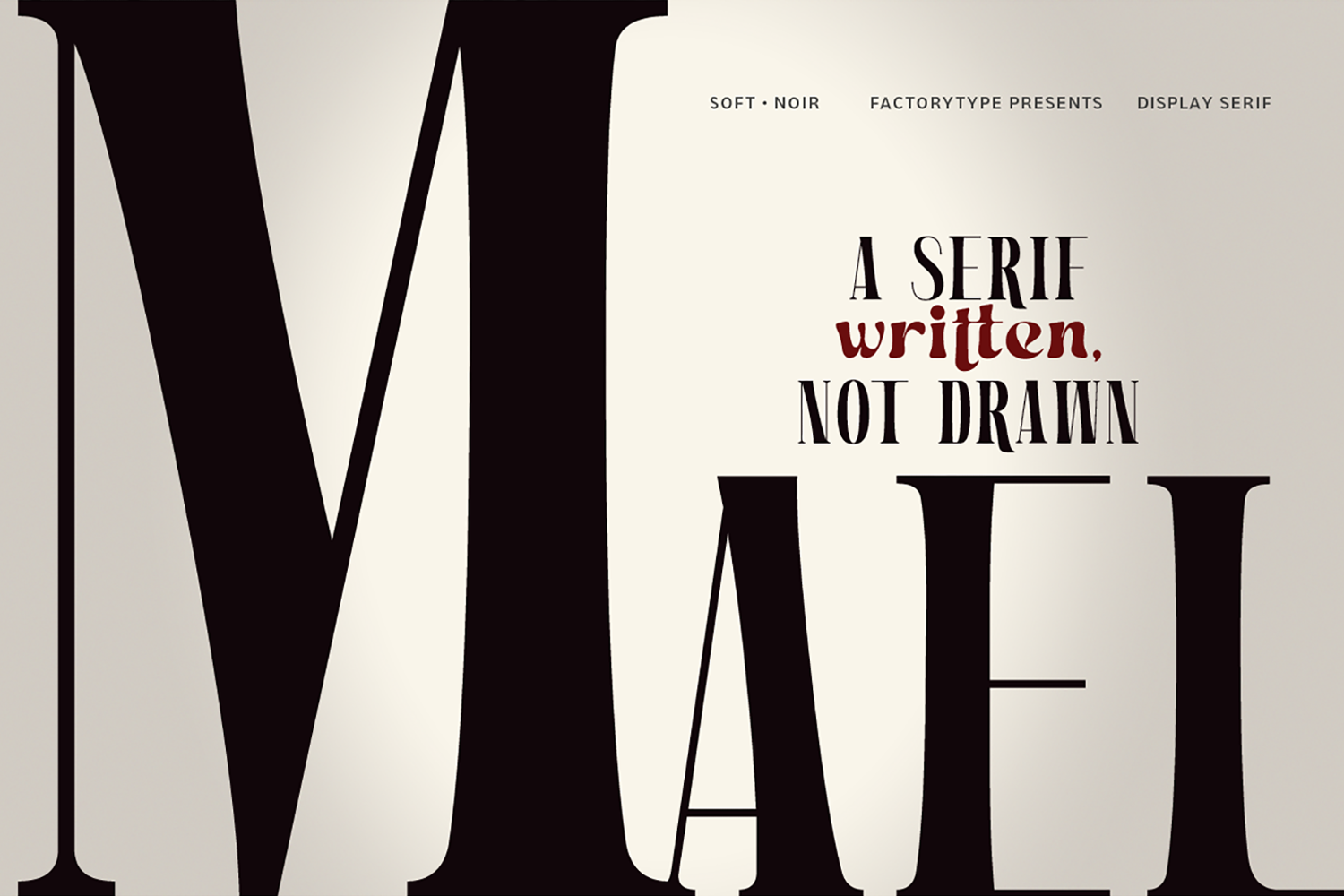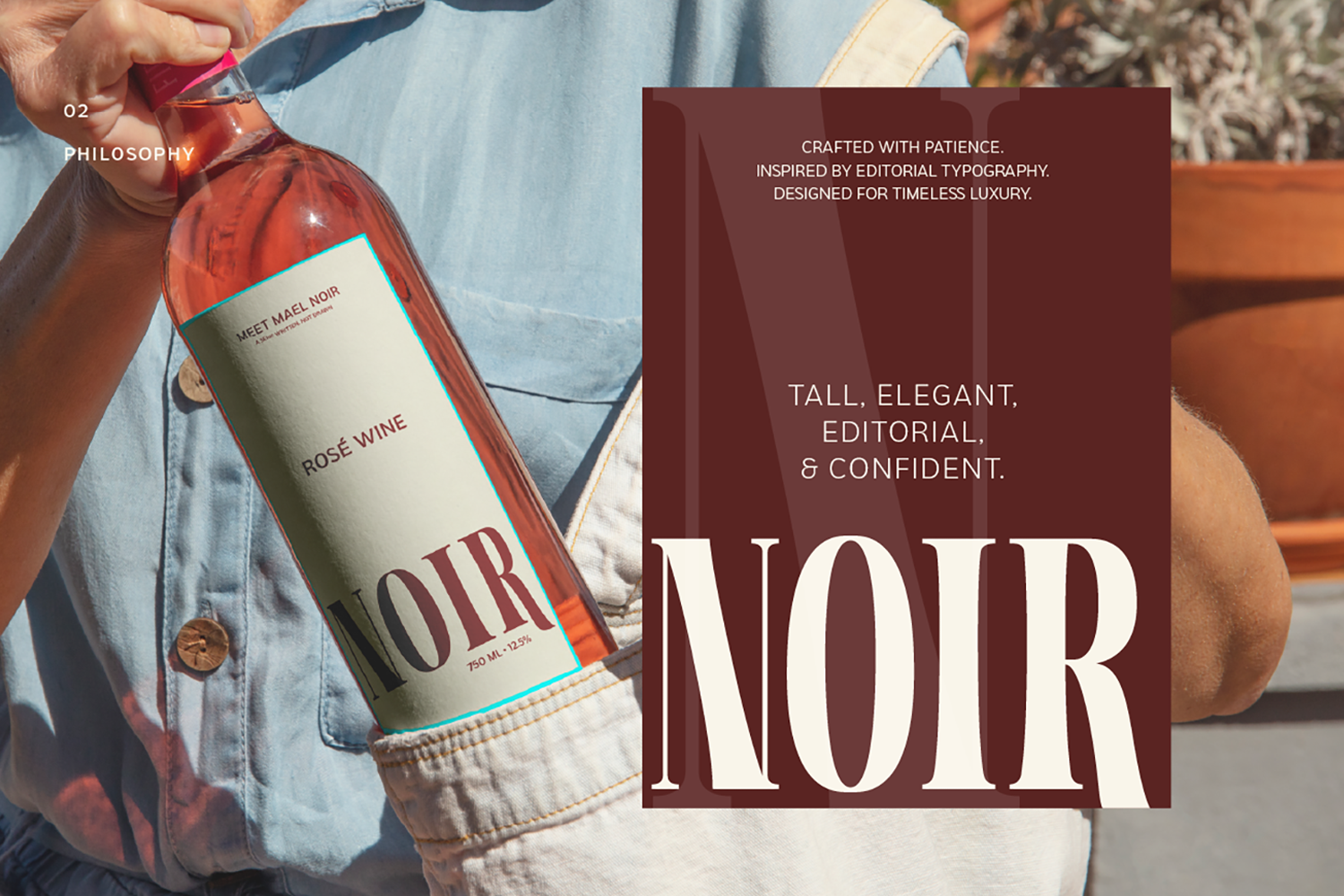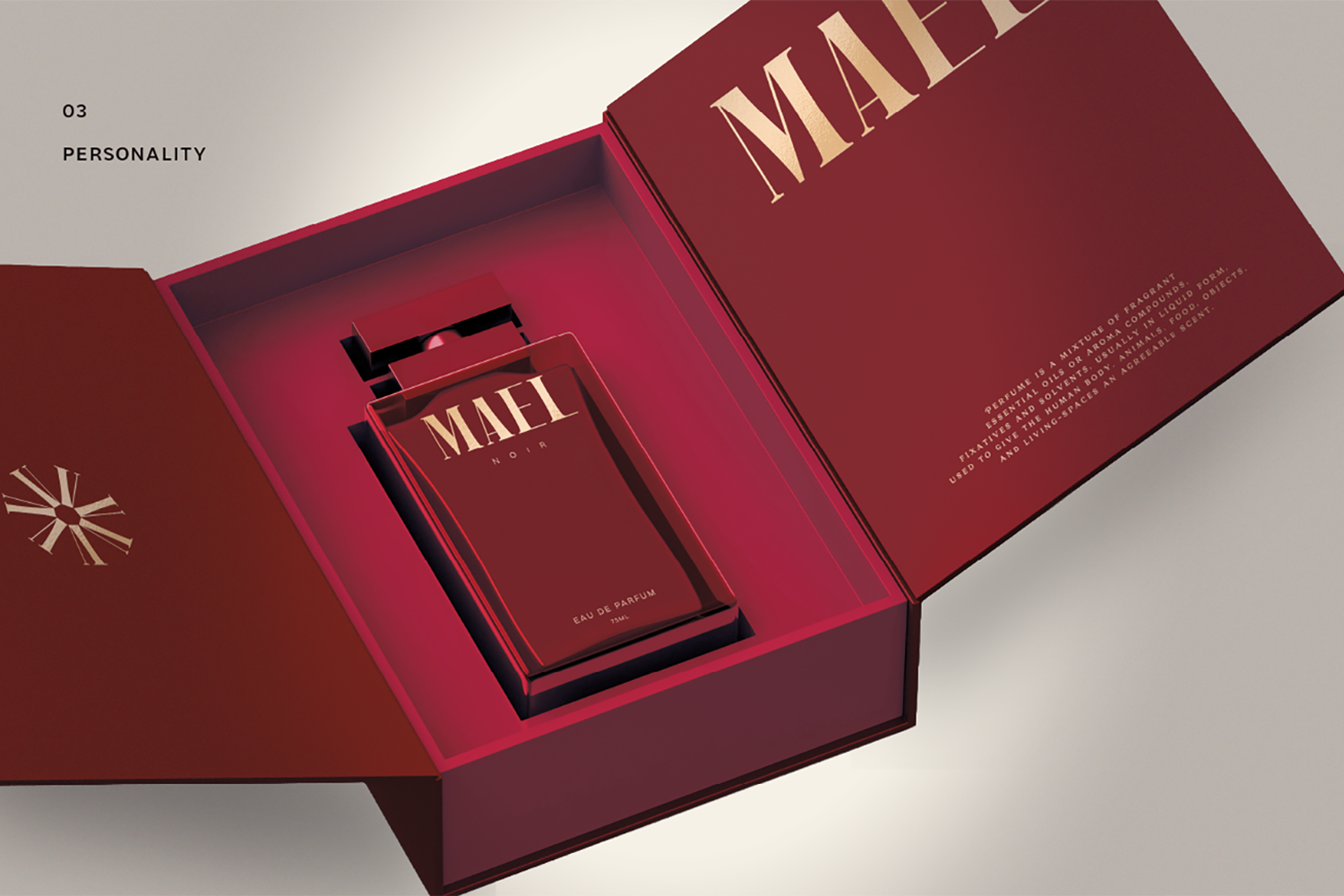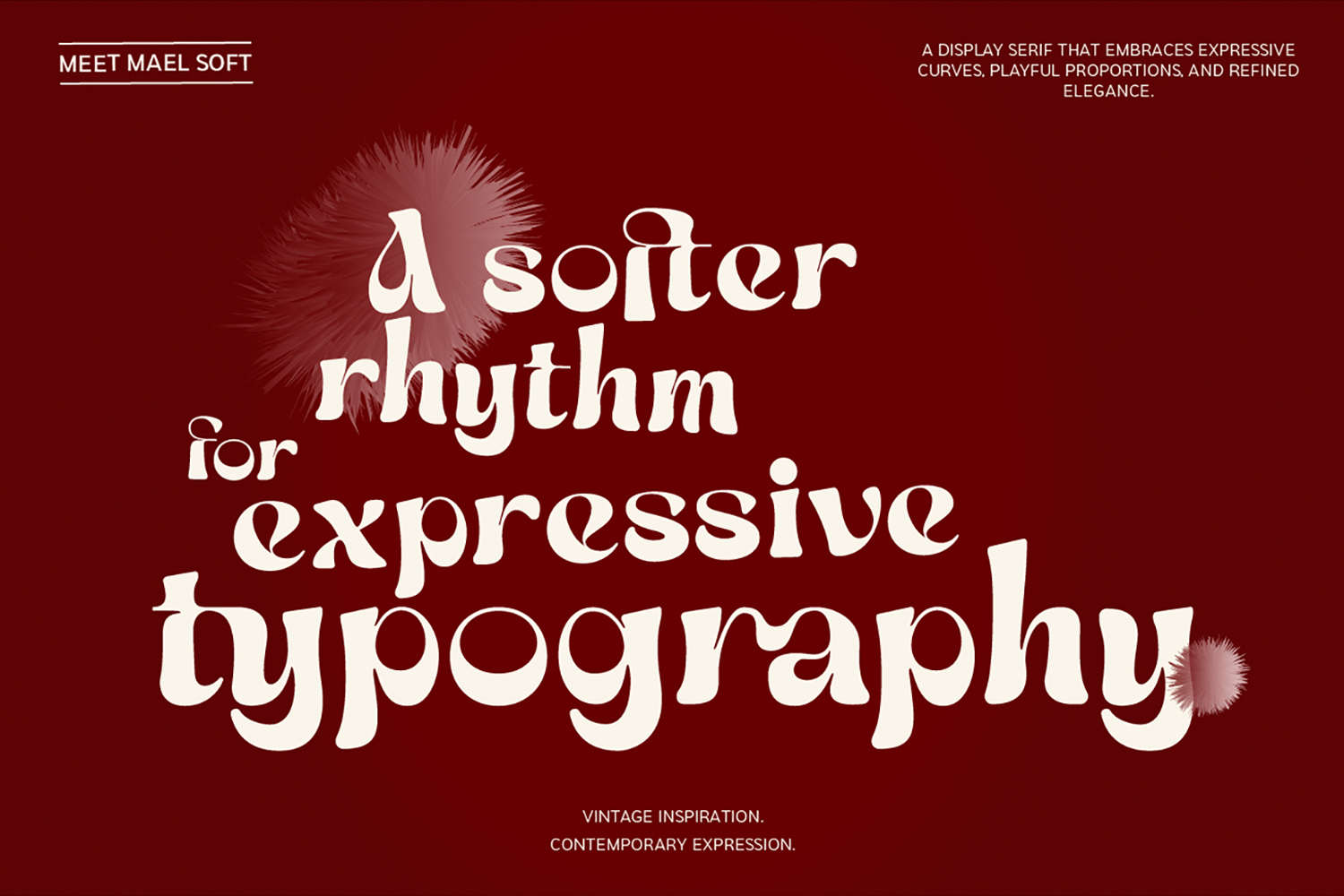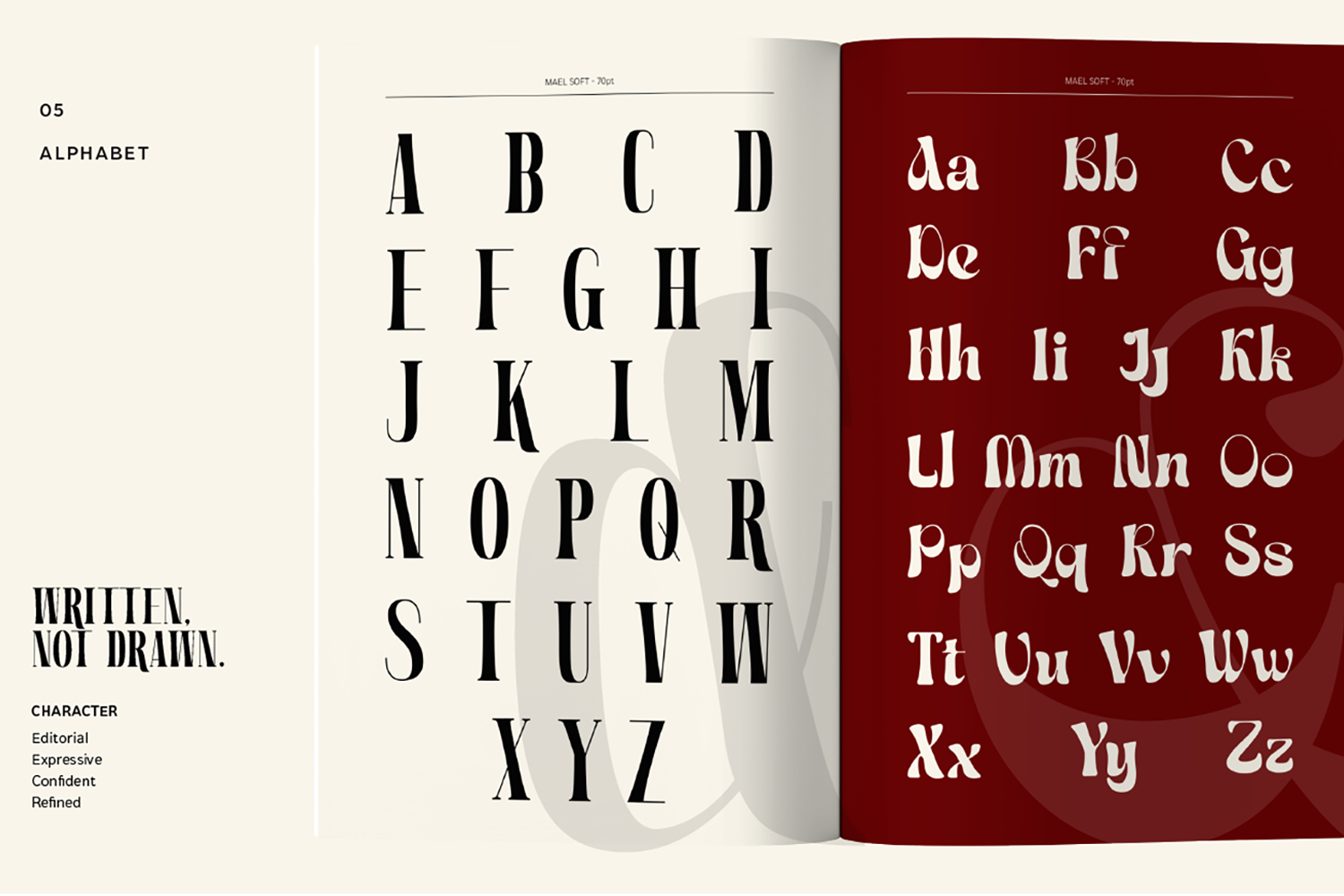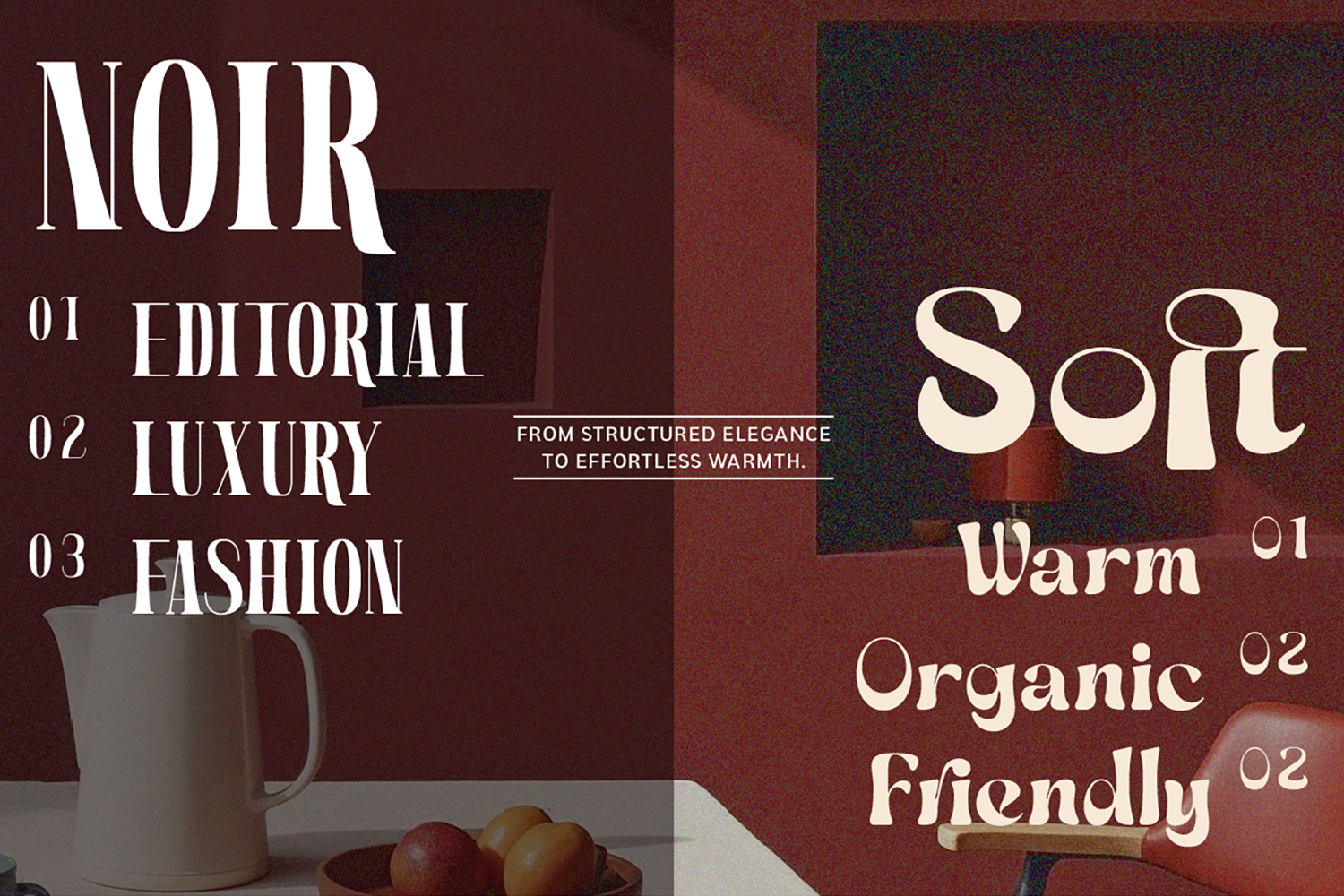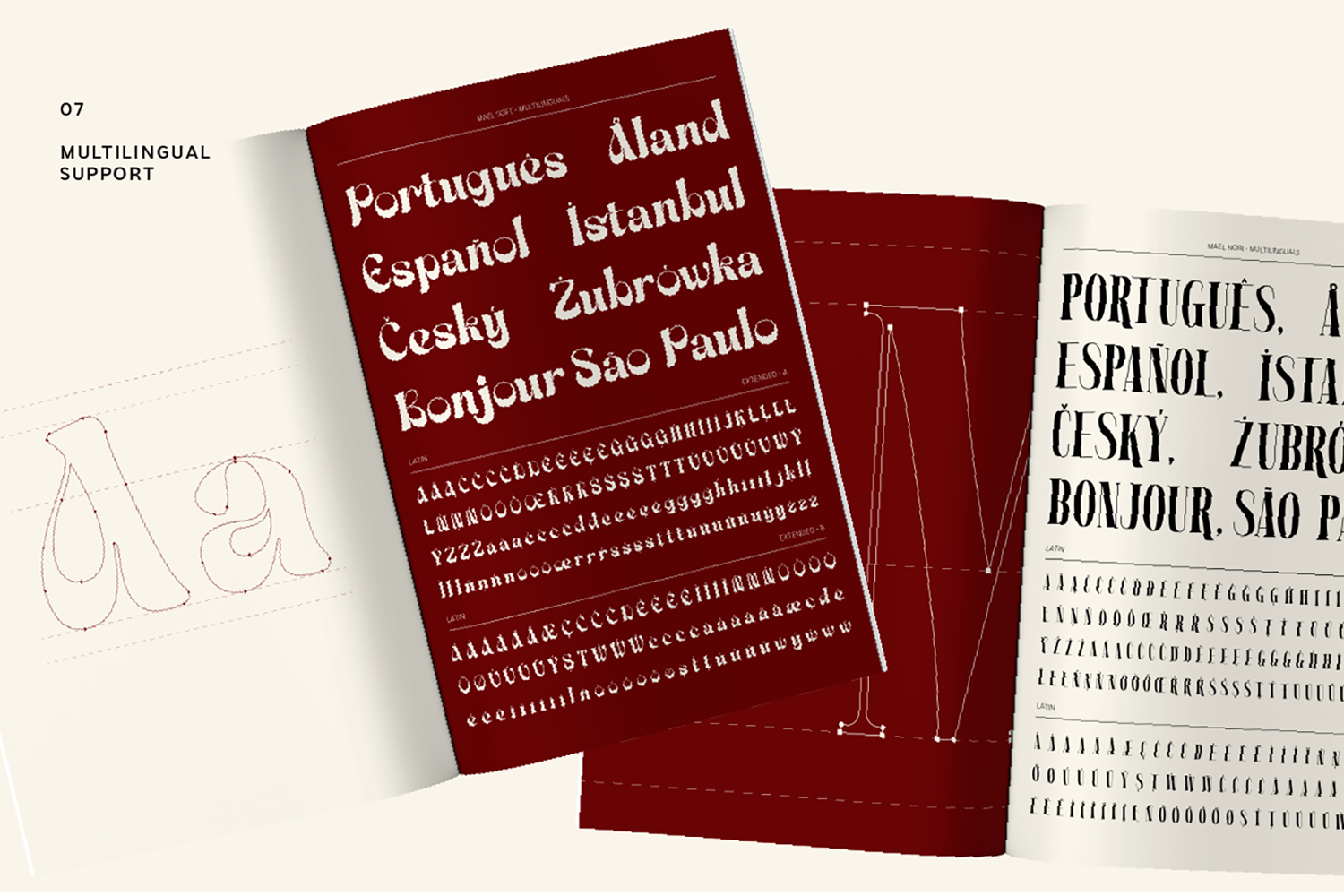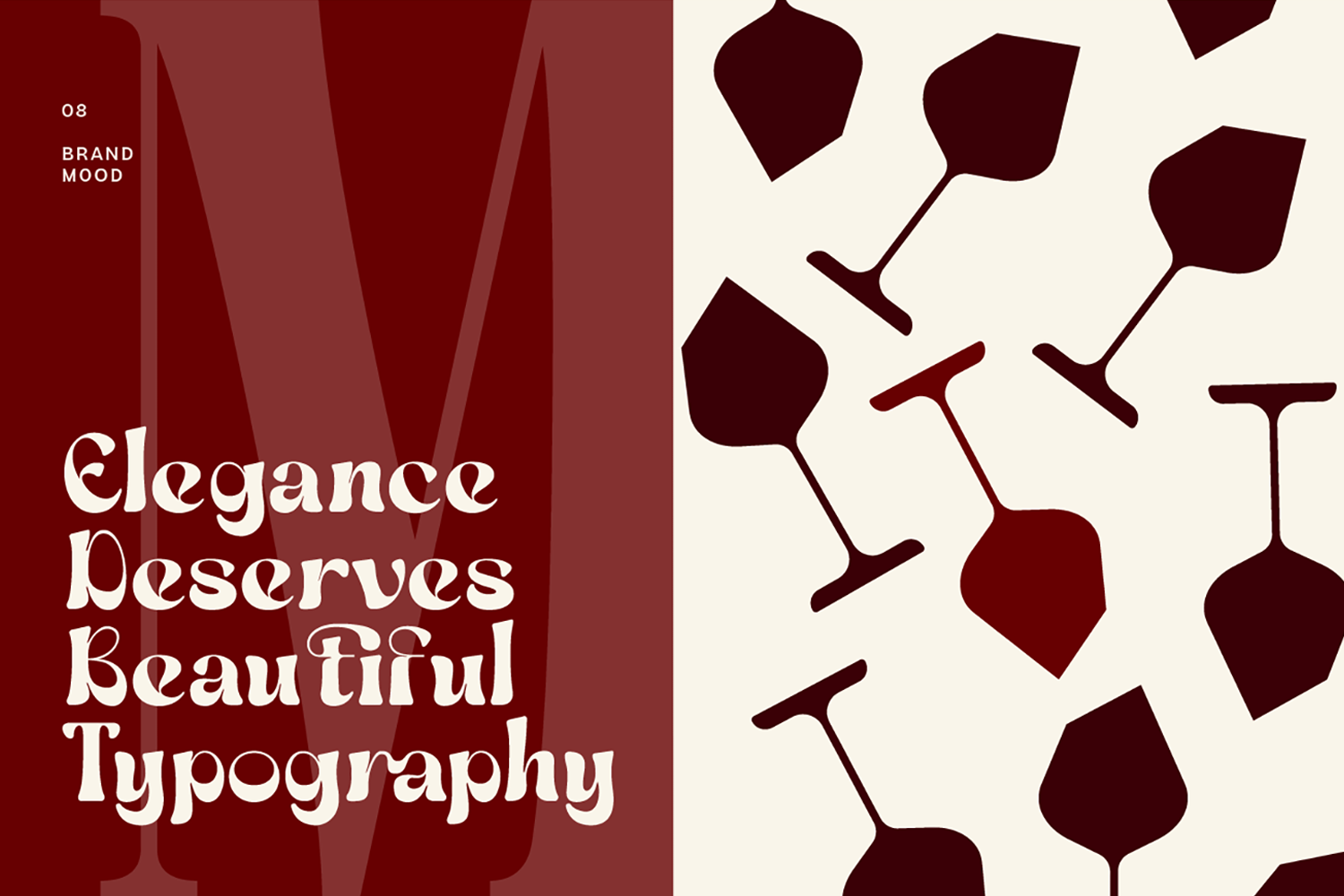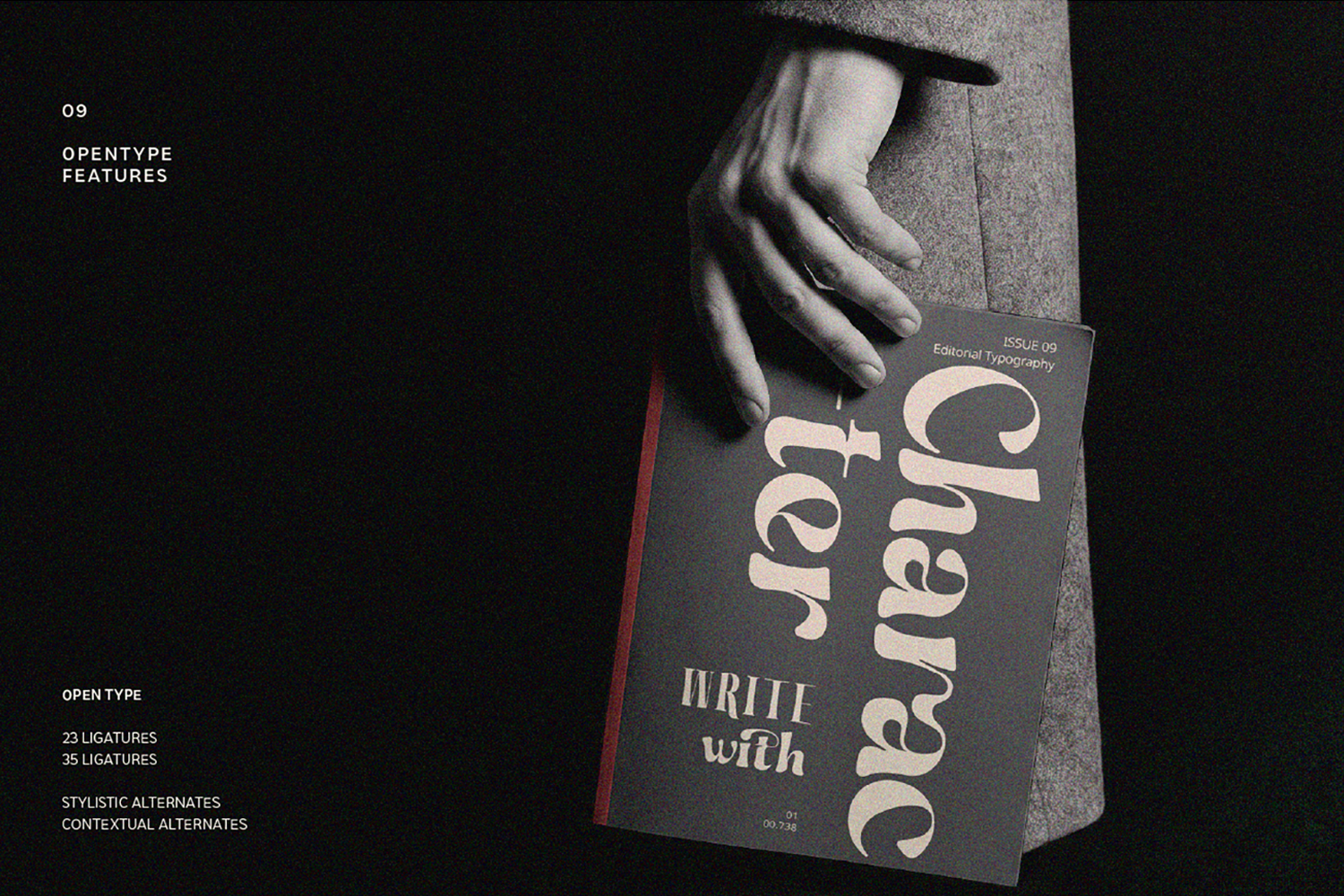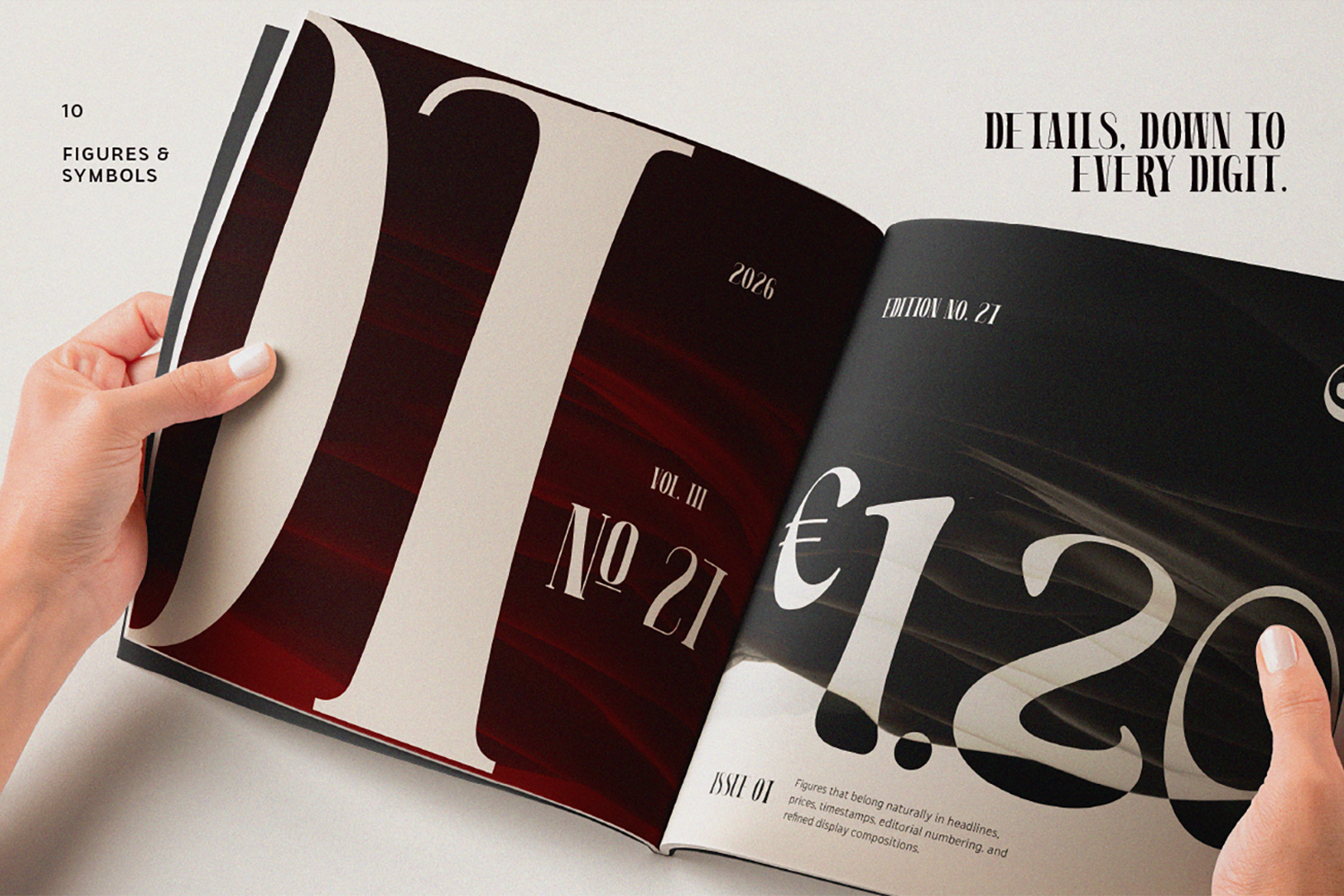
Premium display serif duo for luxury branding, editorial layouts, logos, packaging & fashion.
MAEL is a premium display serif font duo that blends timeless editorial elegance with expressive organic character. Designed as two complementary styles, MAEL Noir delivers tall, refined, high-contrast forms, while MAEL Soft introduces warm curves and playful personality. Together, they create a versatile typography system for modern luxury branding and editorial design.
Perfect for logos, magazines, fashion campaigns, packaging, beauty products, wine labels, hospitality branding, and sophisticated visual identities, MAEL helps designers build memorable typography with confidence.
Whether used individually or paired together, MAEL offers the perfect balance between structured elegance and expressive warmth—making it an excellent choice for luxury branding, editorial layouts, packaging, logos, headlines, social media, and premium print design.
Mael – Luxury Editorial Serif